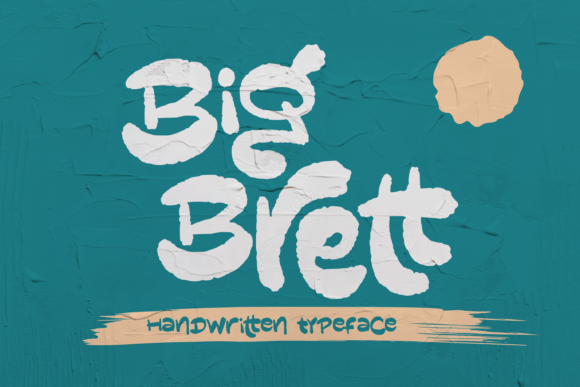
The Big Brett Font: A Fun and Playful Addition to Your Design Toolbox
I’ll never forget the time I was working on a project for a client who wanted a fun and playful vibe. I had spent hours browsing through font libraries, but nothing seemed quite right. That’s when I stumbled upon the Big Brett font. It was love at first sight! 😍 The contemporary and fresh feel of this handwritten font instantly elevated my design, and I knew I had found the perfect fit.
An Honest Review of Big Brett
• ✨ The unique and playful handwritten style that adds a personal touch to any design
• ✅ The font’s versatility – it works well for both digital and print projects
• 💡 The OpenType features, including glyphs and stylistic alternates, which offer endless creative possibilities
• 🎉 The font’s ability to evoke a sense of fun and approachability, making it perfect for designs that need a lighthearted touch
While Big Brett is an amazing font, there are a few things to keep in mind:
• ⚠️ The font may not work well for very formal or professional designs, as it’s inherently playful
• 🤔 Some characters may not be suitable for use at very small font sizes, due to the intricate details
The Story Behind Big Brett
Big Brett is a font designed with creativity and playfulness in mind. Its creator, a talented type designer, was inspired by the beauty of handwritten letters and the need for a fresh, modern font that could add a personal touch to designs. With Big Brett, designers can create unique and eye-catching designs that stand out from the crowd.
Q: What is the best way to use Big Brett in my designs?
A: Big Brett works well as a headline or title font, but it can also be used for body text in smaller sizes. Experiment with different font sizes and styles to find the perfect fit for your design.
Q: Is Big Brett suitable for very small font sizes?
A: While Big Brett is a beautiful font, it may not work well at very small font sizes due to the intricate details. It’s best to use it at larger font sizes (24pt or larger) to ensure optimal readability.